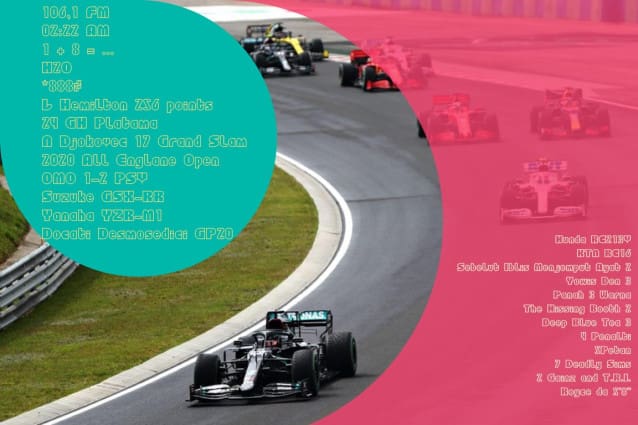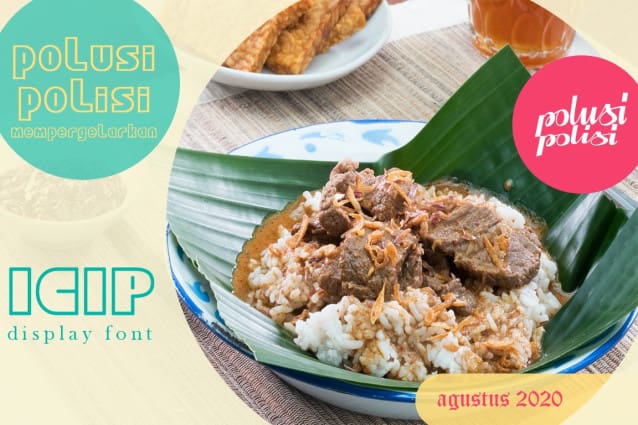
Icip Display Font
Icip Display Font, is a display font that emphasizes curved outlines, has a sleek and fun impression. Icip is perfect for use on coloring books, decorations, paper crafts, stickers, tote bags, tumblers, etc.